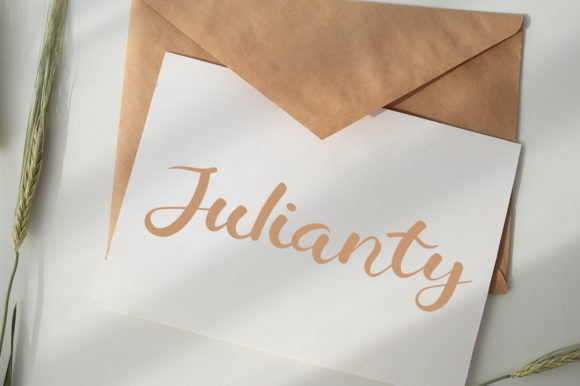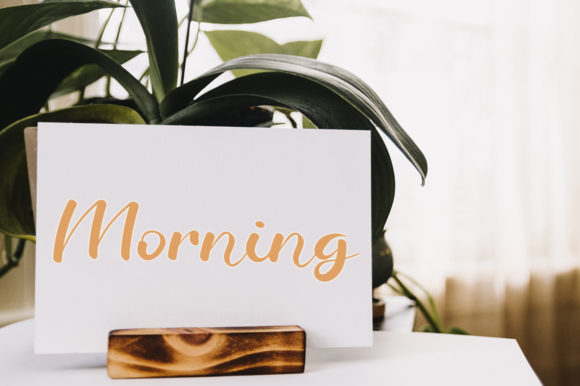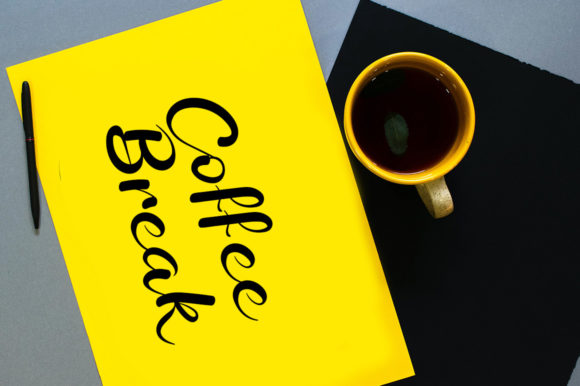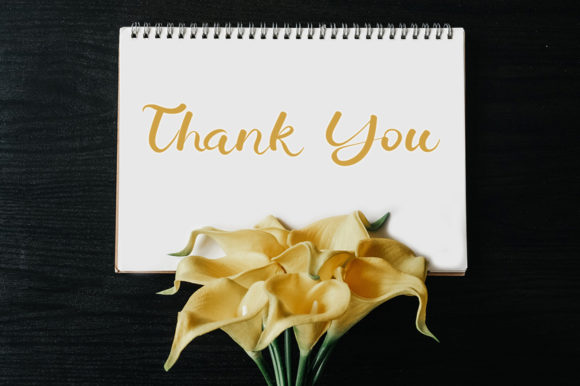
Calligraphy Font
About Calligraphy Font
Calligraphy is a beautiful and sweet script font. It is fresh, clean, and elegant. This font will look amazing in a great amount of projects, both formal and informal.